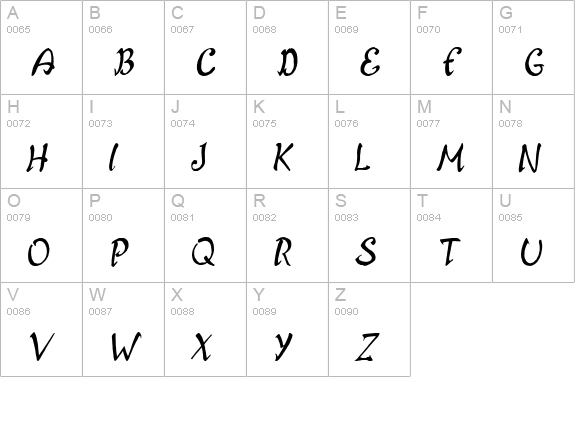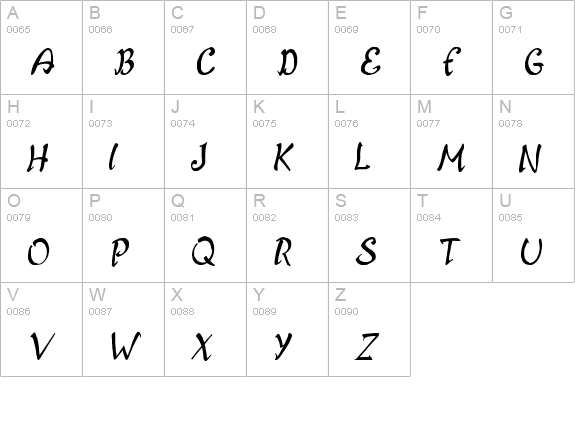
CK Fable Font Details
Introducing CK Fable font, a whimsical and charming typeface that brings a touch of storybook magic to your designs. With its delicate curves and playful appearance, CK Fable is a perfect choice for projects that require a sense of wonder and fantasy. This enchanting font is designed to capture the imagination and add a touch of creativity to any design. Whether you're working on a children's book, a greeting card, or a branding project, CK Fable will help your text stand out and make a lasting impression. The best part? CK Fable font is available for free download at FontsMarket.com. That's right, you can add this delightful typeface to your collection without spending a dime. So why wait? Download CK Fable today and let your creativity soar!